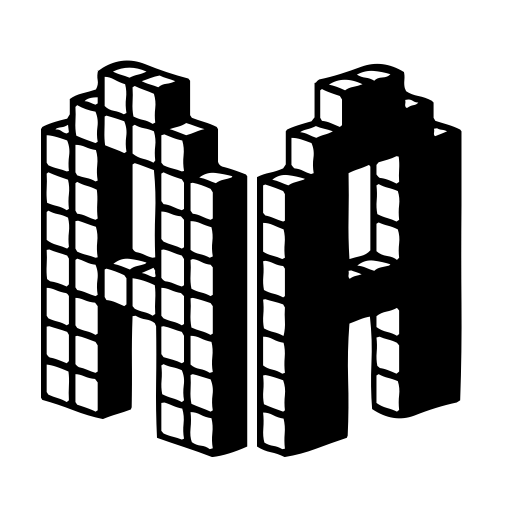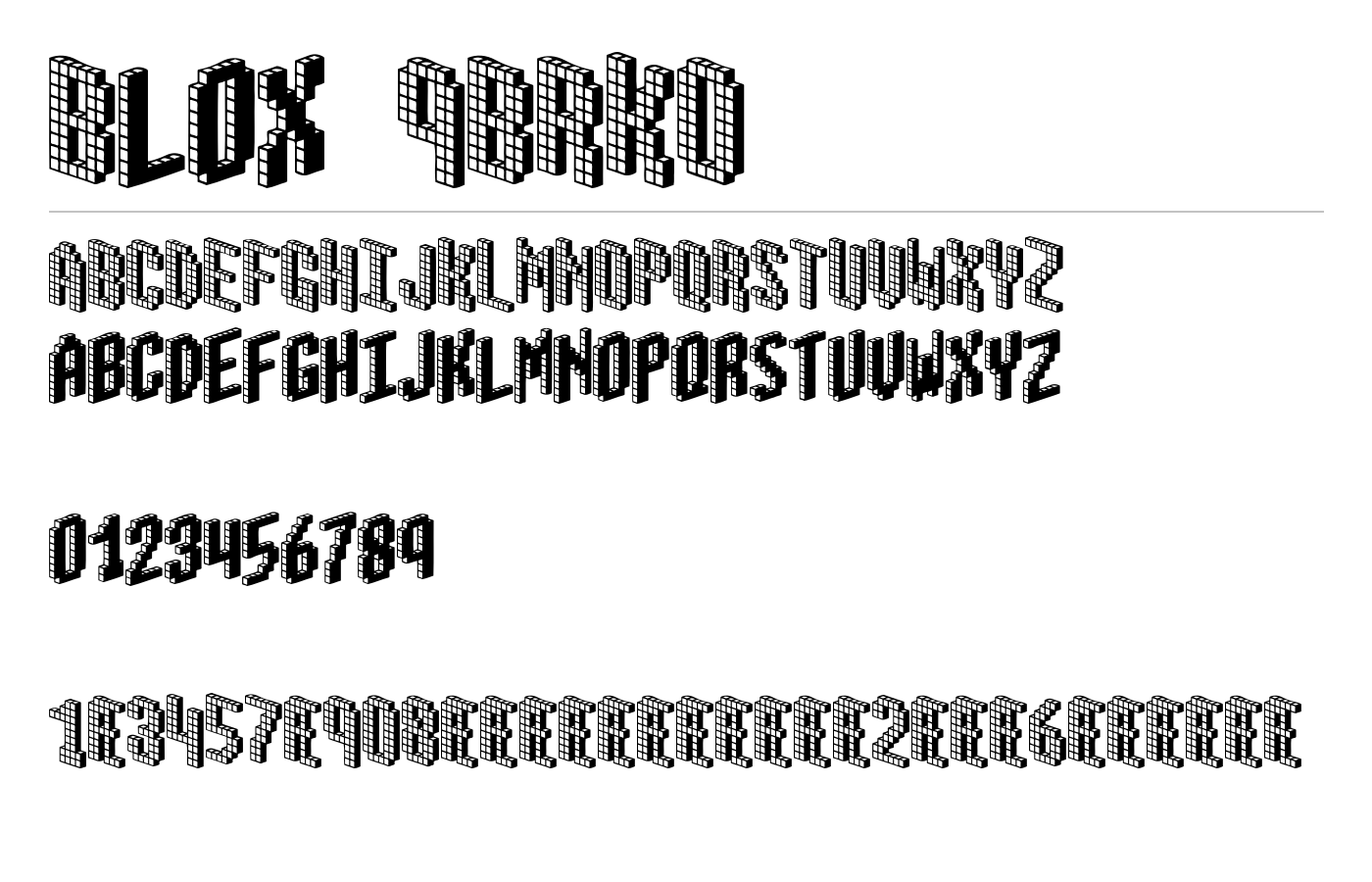
Blox (BRK) is a bold, condensed sans serif font with a distinctive 3D block style that gives it a strong architectural and geometric feel. Its uppercase letters and lining numbers are structured in a way that conveys a modern, tech-inspired vibe, making it ideal for eye-catching headlines, logos, and branding where a futuristic or industrial look is desired. This font works best in display settings where its unique three-dimensional character can stand out and add visual impact.
Blox (BRK) Font